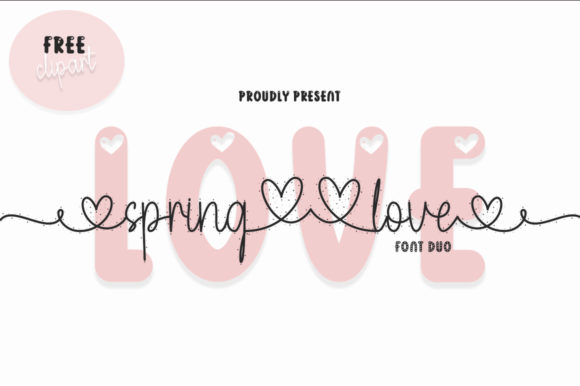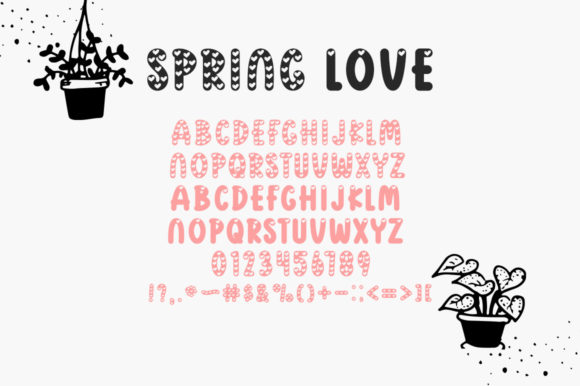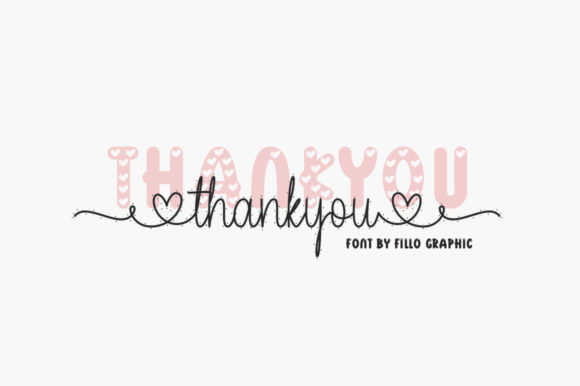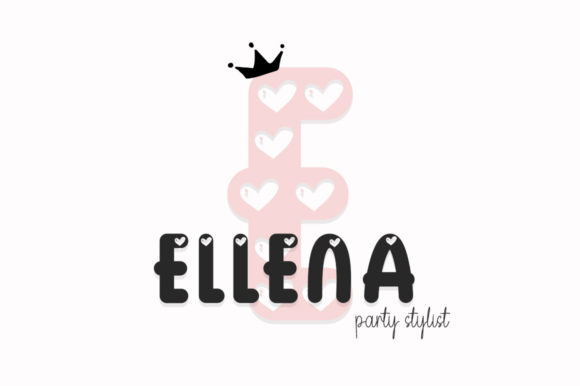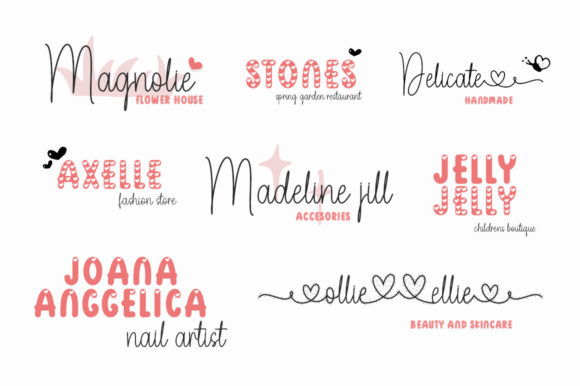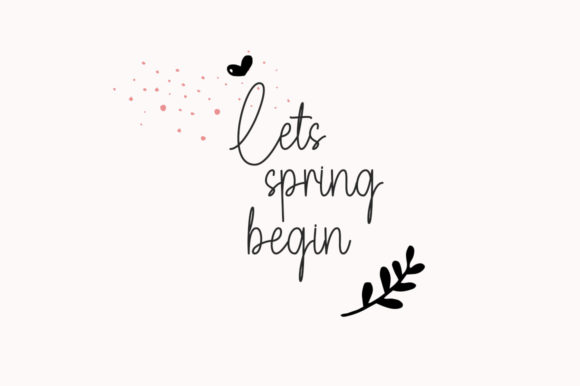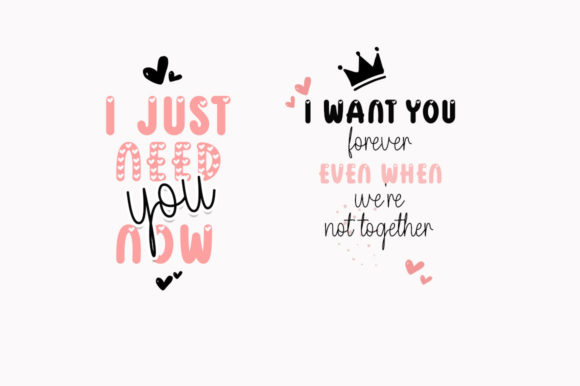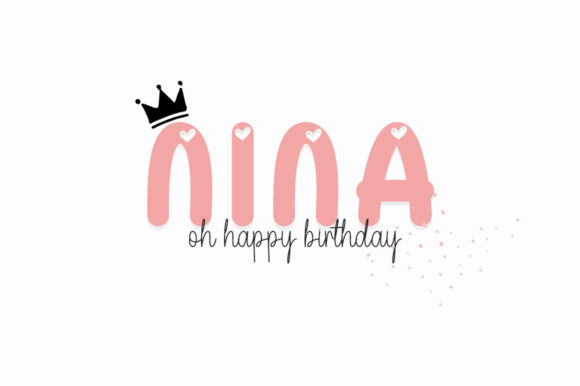
Spring Love Font
About Spring Love Font
Spring Love consists of two fonts designed to complement each other perfectly. Together or apart, these fonts are ideal for adding a chic and cheery touch to your crafts. Spring Love is PUA encoded which means you can access all glyphs and swashes with ease!